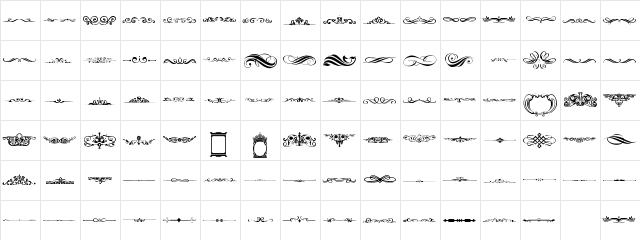
Vintage Decorative signs 2 Regular
Design Context for Vintage Decorative signs 2 Typeface
Vintage Decorative signs 2 wears its vintage influences proudly, with letterforms that recall mid-century signage, classic packaging, and nostalgia-driven design.
Font Pairing: Combine Vintage Decorative signs 2 with a simple slab or neutral sans — period-accurate companions reinforce the vintage feel without competing for attention.
Pro Tip: Use Vintage Decorative signs 2 for headlines and pull quotes rather than body copy — its personality is best appreciated in short, focused bursts.